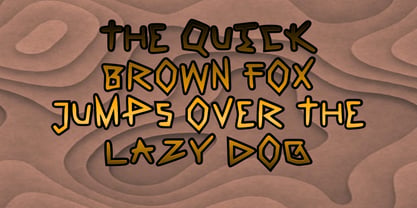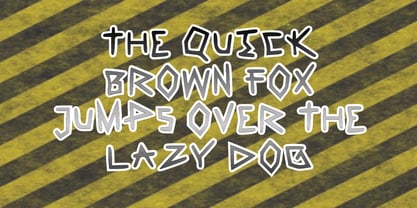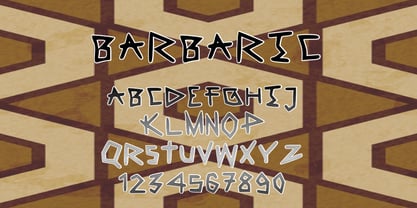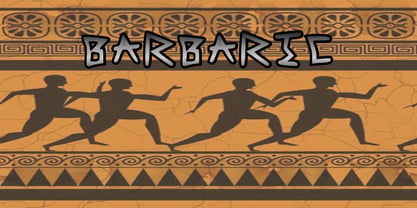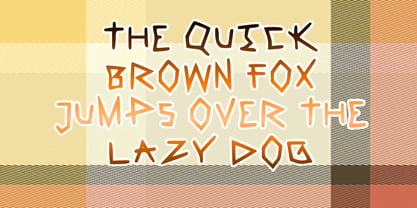
Barbaric
by Pyramind
The Barbaric Font Family was designed by Angela Topalova and published by Pyramind. Barbaric contains 1 styles. More about this family
Barbaric Regular is a bold declaration of untamed character—a typeface forged in the spirit of raw expression and fearless design. Built to command attention from the very first glance, Barbaric blends primal strength with contemporary precision, delivering a powerful visual voice for designers who refuse to be overlooked. At its core, Barbaric Regular embraces intensity. Each letterform feels carved rather than drawn, as if shaped by instinct and sharpened by intention. The strokes carry a deliberate weight, balanced with angular tension and purposeful rhythm. The result is a typeface that radiates strength without sacrificing clarity—assertive, but never chaotic; expressive, yet highly usable. Barbaric is not a whisper. It is a statement. The personality of the typeface is rooted in contrast—between structure and spontaneity, between refinement and raw energy. Its forms may evoke echoes of ancient inscriptions, tribal markings, or battle-worn lettering, yet the execution is distinctly modern. Clean outlines and consistent construction ensure that Barbaric performs beautifully in contemporary layouts, whether in print or digital environments. This duality makes Barbaric exceptionally versatile. It thrives in bold display settings: album covers, gaming titles, fantasy book jackets, festival posters, branding for craft beverages, tattoo-inspired merchandise, streetwear graphics, and cinematic key art. Wherever intensity, rebellion, or mythic atmosphere is required, Barbaric delivers.
Designers: Angela Topalova
Current Foundry: Pyramind